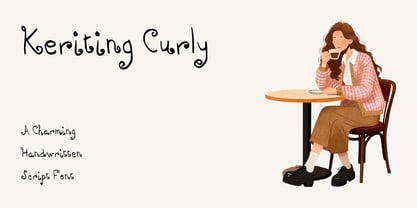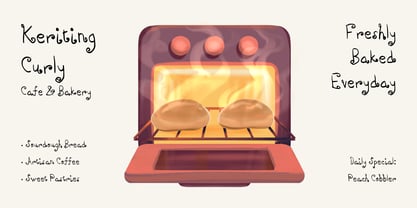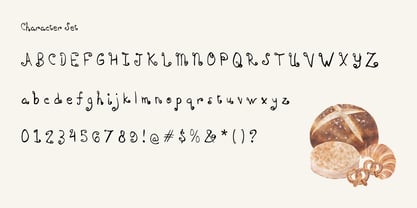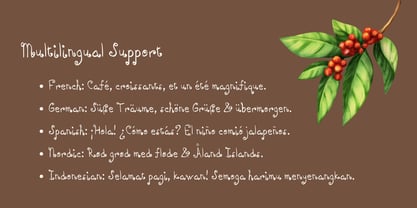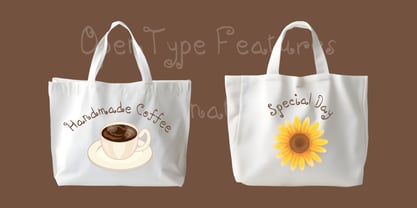
Keriting Curly
The Keriting Curly Font Family was designed by Wahyu Eka Prasetya, Moch Zamroni and published by Kalam. Keriting Curly contains 2 styles and family package options. More about this family
Keriting Curly is a charming handwritten script font designed to bring warmth, personality, and an authentic human touch to your creative projects. Crafted with smooth, expressive loops and playful, bouncy curves, it perfectly captures the relaxed elegance of natural penmanship while maintaining high legibility.
Ideal Uses:
• Branding & Packaging: Perfect for boutique logos, bakery packaging, cosmetics, and product labels.
• Event Stationery: Stunning on wedding invitations, greeting cards, and personalized gifts.
• Digital & Print: Great for social media quotes, book covers, and eye-catching marketing graphics.
Key Features:
• Complete Character Set: Includes uppercase, lowercase, numbers, and full punctuation.
• OpenType Features: Stylistic alternates, ligatures, and swashes for versatile design choices.
• Multilingual Support: Ready for broad international language use.
Pairing Tip:
Pair Keriting Curly with a clean, minimal Sans-Serif for a modern aesthetic, or a classic Serif for a timeless, elegant look.
Bring your text to life with the playful charm of Keriting Curly!